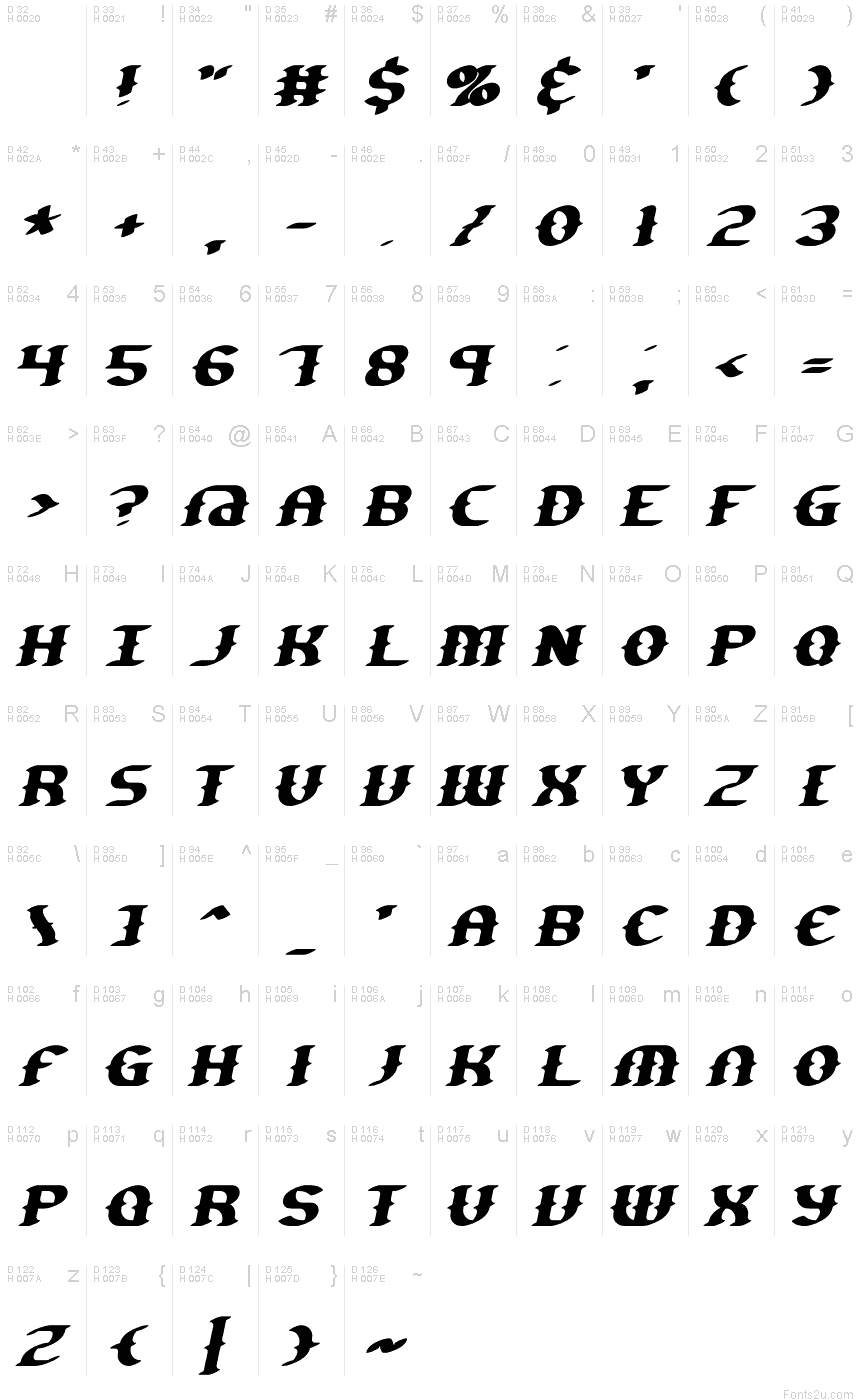
Gesture Slant BRK
Gesture Slant BRK font by Aenigma Fonts is a free retro display typeface. Its thick, inky strokes swoop forward with a dramatic slant, like hand-painted letters caught mid-motion. Curved shapes swell and taper in unexpected places, giving words a loose, almost graffiti-like energy while still feeling solid and readable at larger sizes.
Using Gesture Slant BRK, headlines feel loud and physical—great for gig posters, skate or streetwear branding, retro horror titles, flyers, album covers, and bold social graphics. The heavy, tilted forms pull the eye along a line of text, making short phrases and names hit hard. This free font works beautifully when you set it big and pair it with a clean geometric sans in smaller copy to keep layouts balanced.